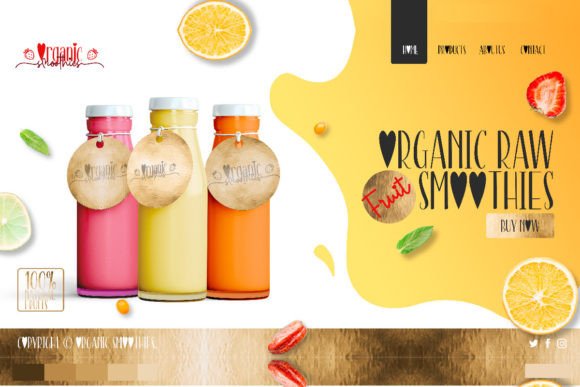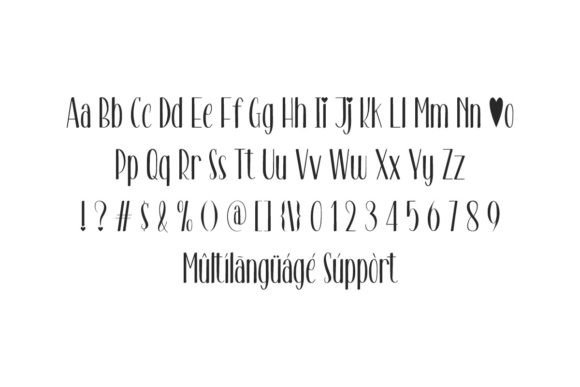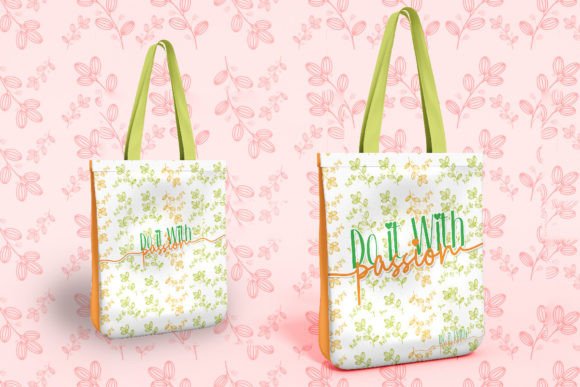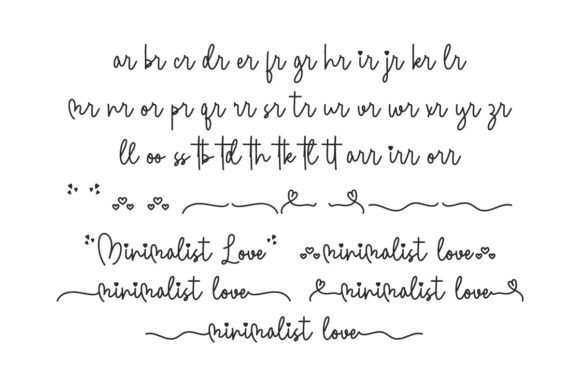
Minimalist Love Font
Minimalist Love Font is a romantic font duo that complements each other in two different styles: stylish sans serif display and cute handwriting script. The serif display font has thin and tall characters and the script comes with a sweet handwriting impression on its lines. It will be suitable for craft, fashion, florist, movie, publishing, custom design, interior design, travel, marketing, and many more!